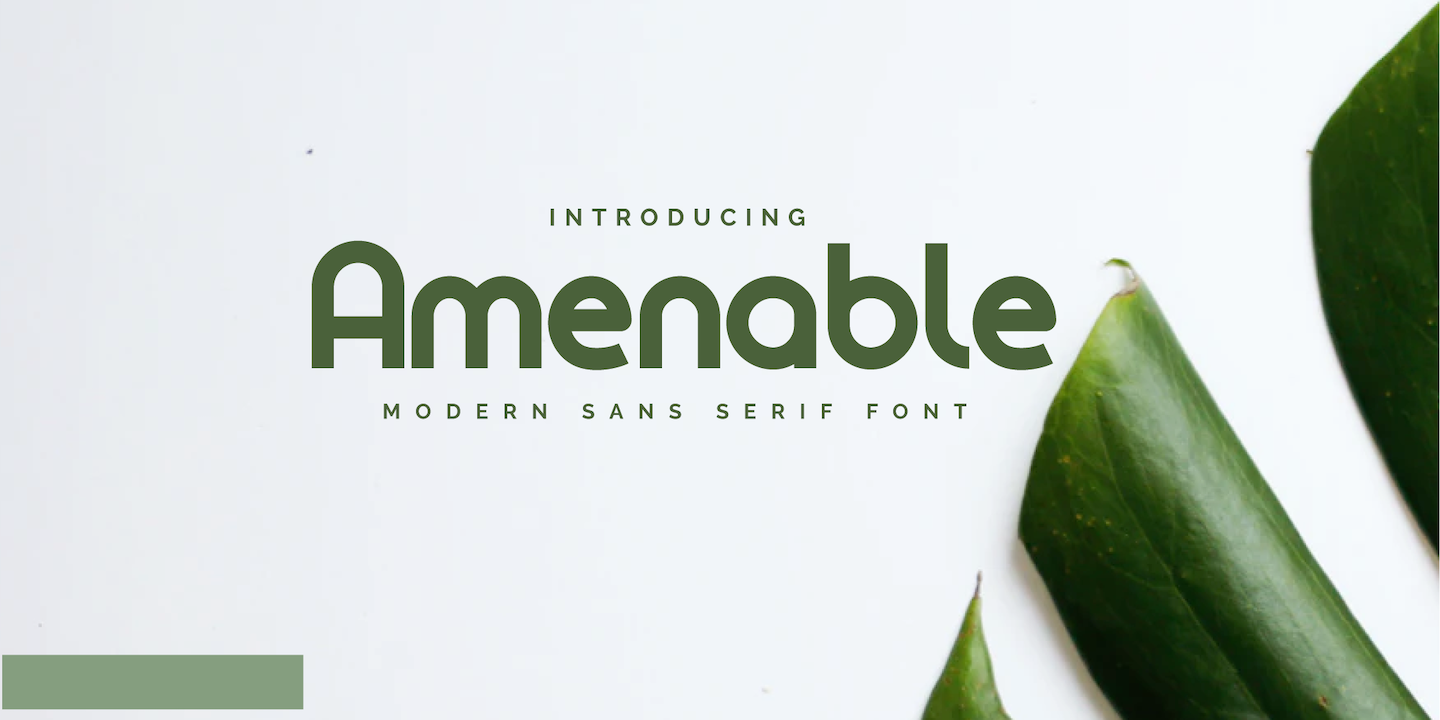
Amenable Font Free Download – Elegant and Friendly Typeface for Versatile Designs
Searching for a font that combines elegance with approachability? Amenable Font Free Download is the perfect solution. This clean, modern typeface features smooth curves and balanced proportions, making it ideal for branding, editorial layouts, websites, and print materials.
Amenable’s versatility allows it to work seamlessly in both formal and casual projects, offering excellent readability without sacrificing style. Whether you’re designing logos, headlines, or body text, this font adds a professional yet friendly touch to your creations.
Enhance your typography with Amenable — a font that brings elegance and warmth to every design.